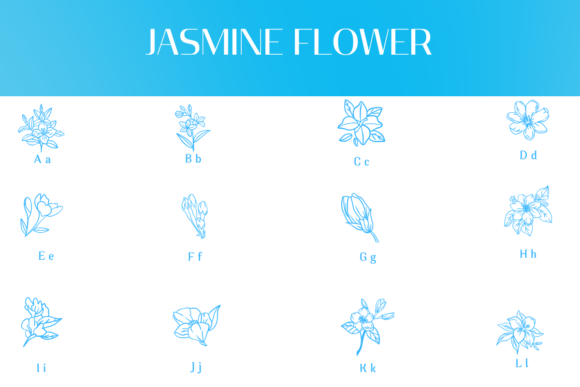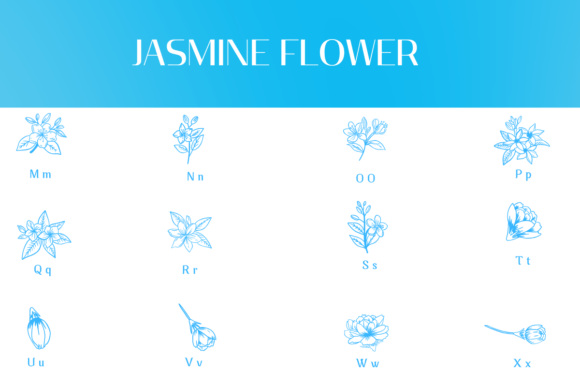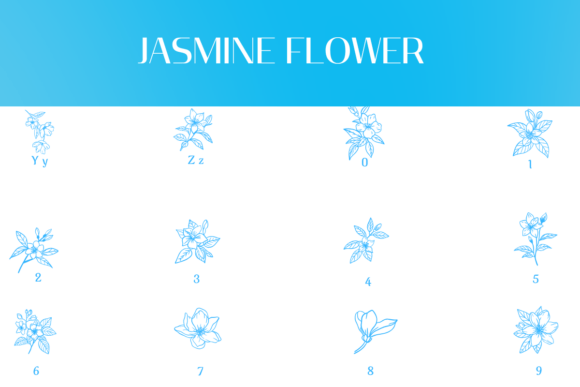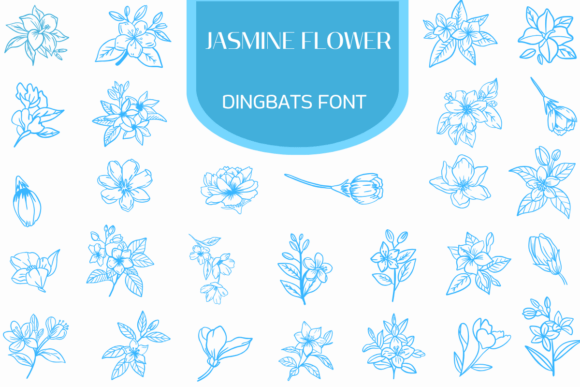
Introduction to Jasmine Flower Font
Jasmine Flower is a Dingbats Fonts.
You can use it for taking notes, writing a diary, or making greeting cards However, you can still use it for other designs, such as banners, content, mugs, cards, shirts, stationery, social media posts, and more.
Jasmine Flower Font offers exceptional quality and versatility, making it a valuable addition to your design toolkit. Whether you’re creating for personal projects or commercial use, Jasmine Flower Font delivers professional results.